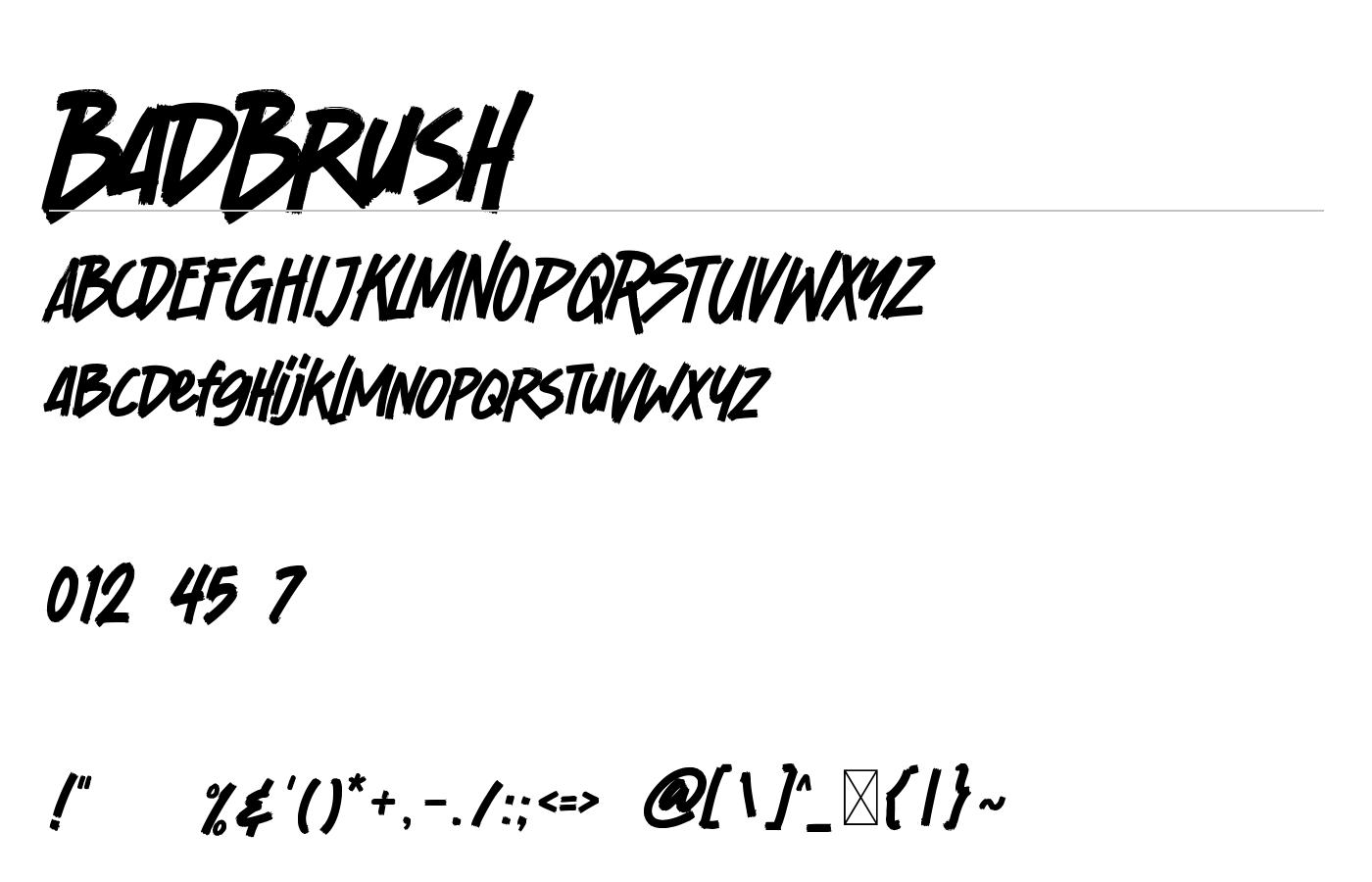
BadBrush is a bold, energetic brush script font with a casual, hand-painted feel. Its rough, textured strokes and slanted, uppercase and lowercase letters bring a lively, dynamic personality that works perfectly for creative, informal designs like posters, logos, and branding that want to convey fun and spontaneity. This font shines in contexts where a strong, artistic style is needed to grab attention and express individuality.
| Font family | BadBrush Font |
| Designer | Anang F & Malik Wsn | Gassstype© Studio 2021 |